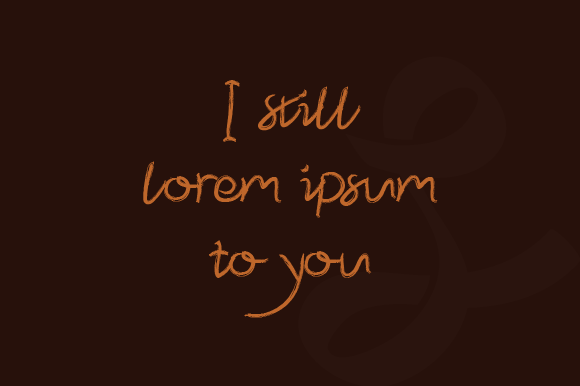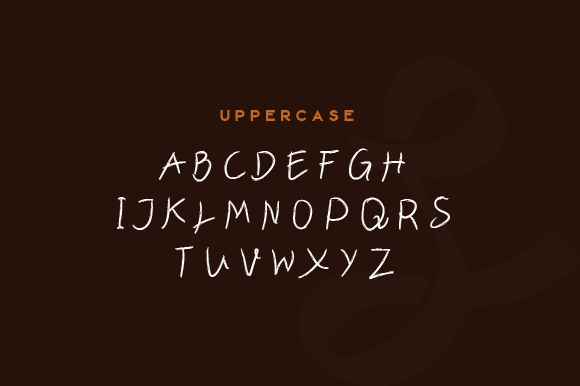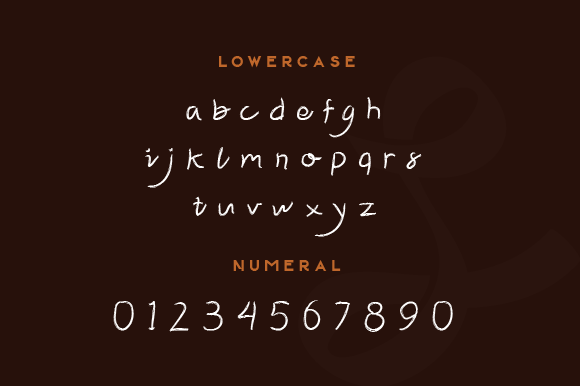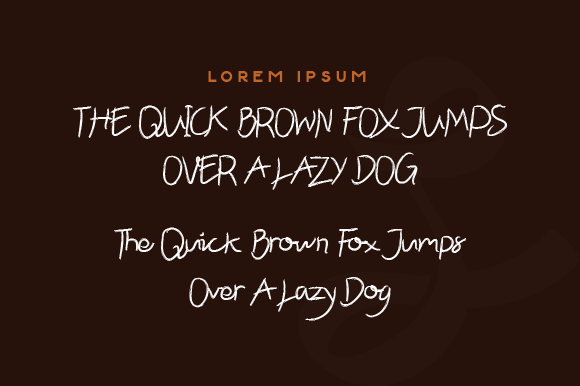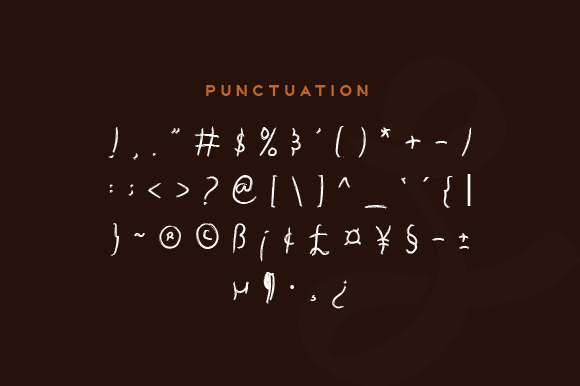
Introduction to Geoliticum Font
Geoliticum is a casual, fun handwritten font, created by using a brush pen.
Clean and a little bit quirky, this font is the perfect fit for all of your logos, branding, social media, and crafty DIY projects .
Key Features of Geoliticum Font